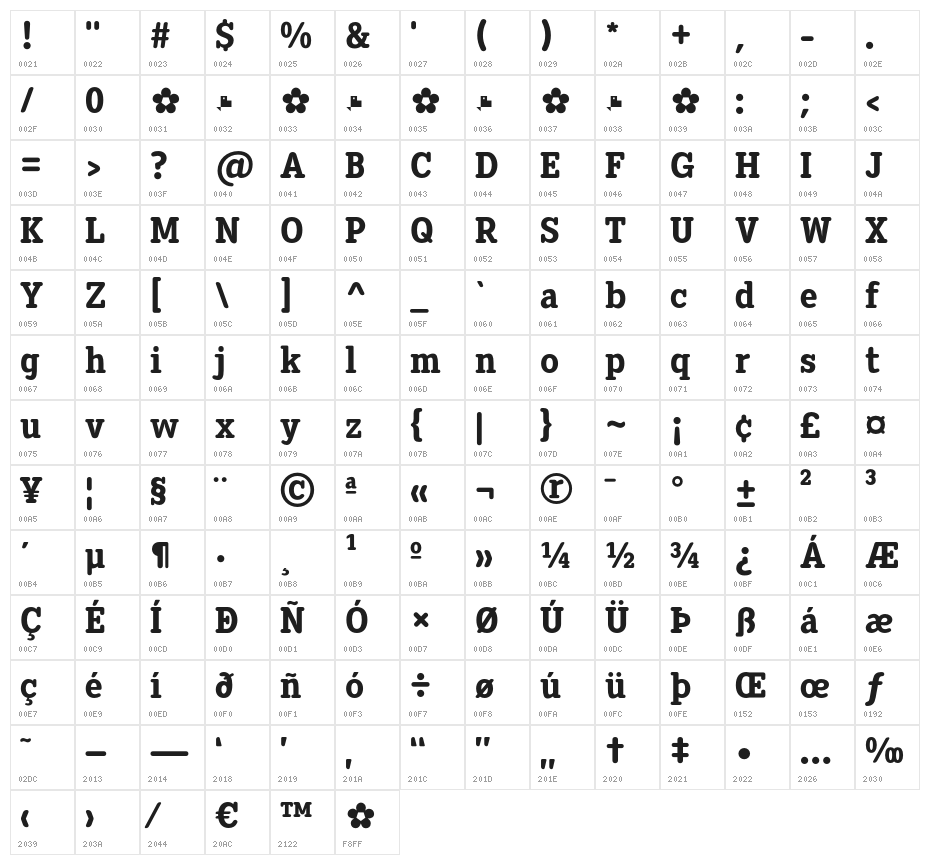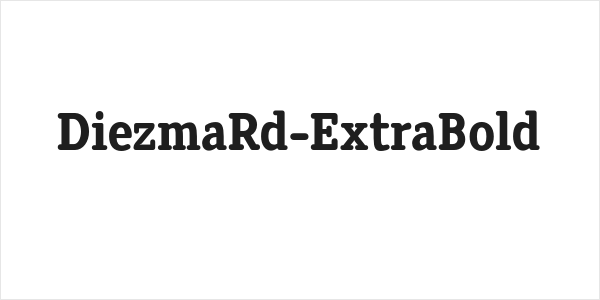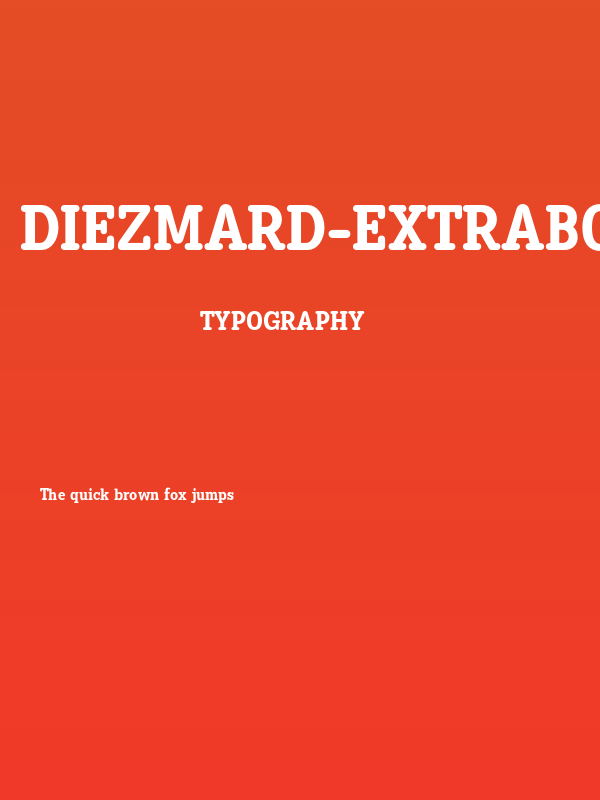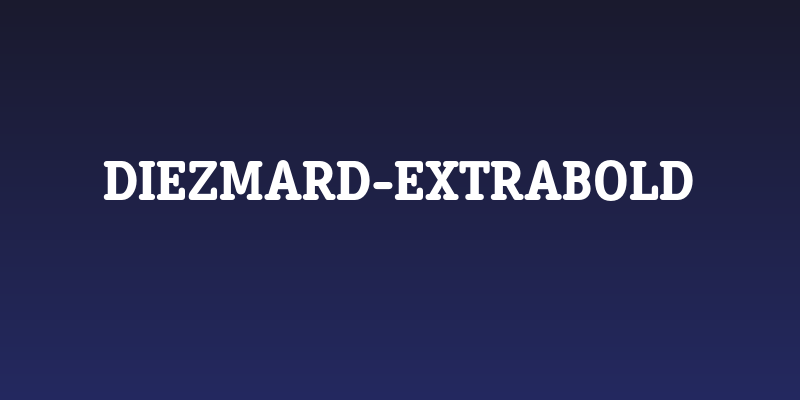
DiezmaRd-ExtraBold Font
DiezmaRd-ExtraBold Description
This font features a bold and robust slab serif style, characterized by thick, block-like serifs that give it a strong and impactful appearance. The uppercase letters are uniform in height, with a consistent stroke width that enhances readability. The lowercase letters maintain a similar weight, providing a cohesive look across different text sizes. The numerals are clear and distinct, with a uniform width that aligns well with the overall design. Special characters are designed with the same boldness, ensuring they stand out effectively. This font's heavy weight and solid structure make it ideal for attention-grabbing headlines and titles.
| Proposed Projects | Ideal for headlines, posters, branding, and any project requiring a strong visual impact. |